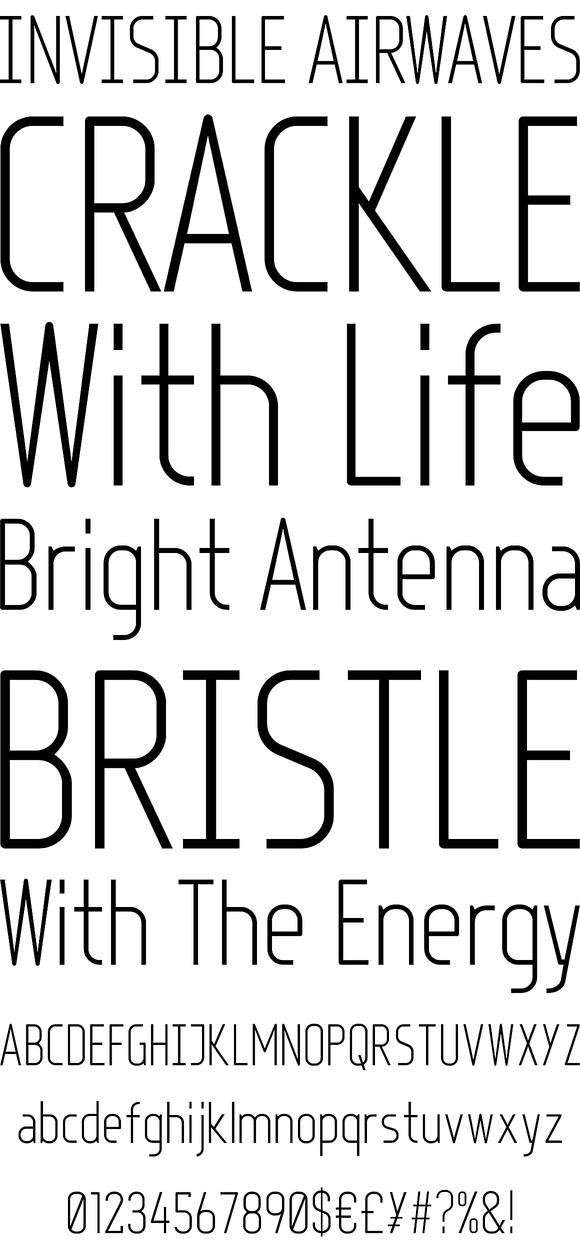
Fux is a condensed and neutral looking font. It comes in three weights of light, regular and bold, and two versions of regular & italic. With Fux you have access to many opentype possibilities like an extended ligature set, small caps, old style numbers and contextual alternates. That gives you an abundant amount of freedom and alternative options that will achieve many of your typesetting needs.